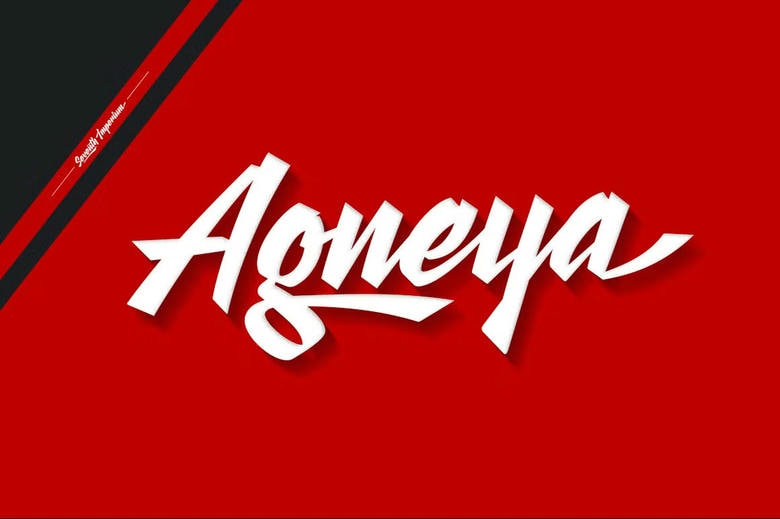
Agneya Font
Agneya is a calligraphy script font inspired by urban street art. It comes with OpenType features, including stylistic alternates, swashes, and over 600 glyphs. This makes it easy to create Signpainter logos and use it for many other design projects. Simply open the OpenType Alternates and choose the style you like.
Agneya Calligraphy Script Font